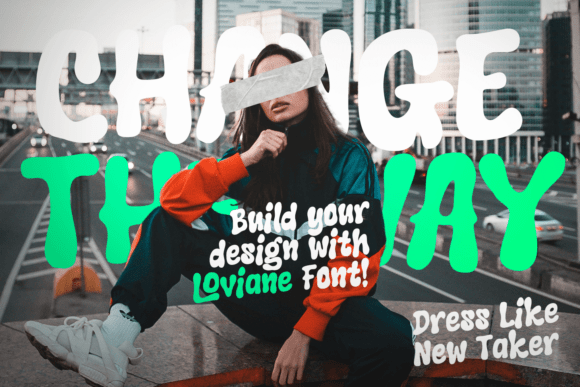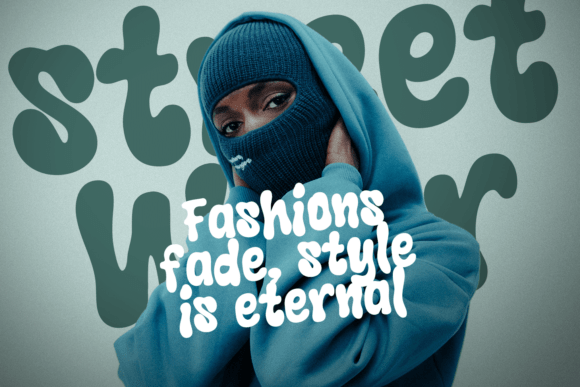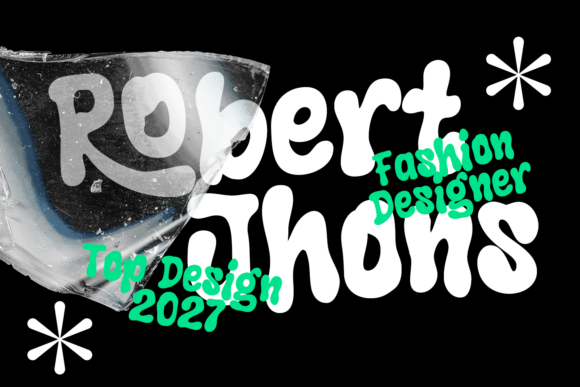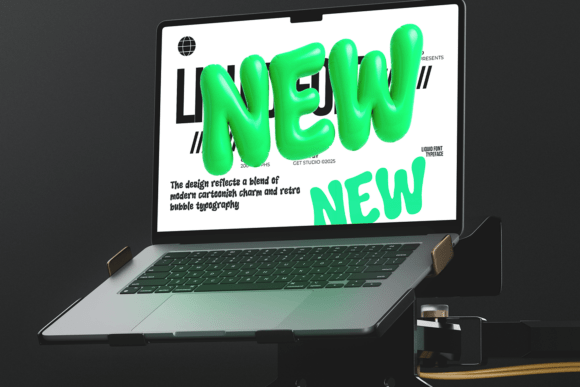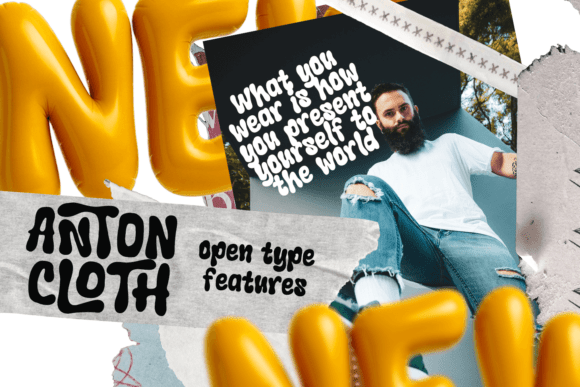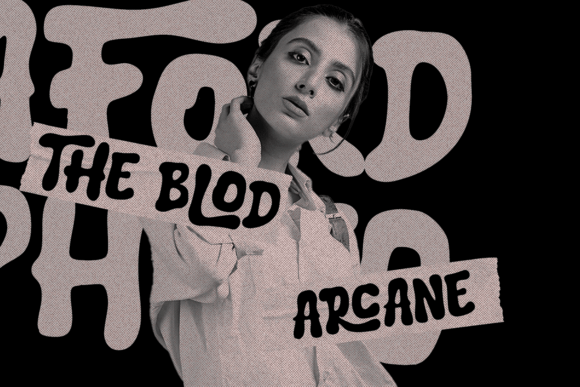
Introduction to Loviane Font
Have you ever stared at a blank design canvas, trying to capture the essence of your creative idea? The blank page can be intimidating, but with the right design resource, it can also be a thrilling challenge. For designers looking to add a splash of fun and modern creativity to their projects, the Loviane Font is an exciting discovery.
This playful liquid-style typeface brings a refreshing vibe to any design, from branding and packaging to social media graphics and event headlines. With its smooth, bubble-like shapes, Loviane Font makes every word look bold, juicy, and eye-catching, perfect for designers seeking to add a touch of personality to their creative projects.
Key Features of Loviane Font
- High-quality design resource perfect for creative projects, offering a unique and elegant aesthetic.
- Unique characteristics include intricate details and a modern, sophisticated feel, making it perfect for branding and design projects.
Honest Review: Loviane Font
I recently stumbled upon the Loviane Font, a design resource that caught my attention. The first thing I noticed was its high quality and versatility, making it perfect for various creative projects. The font’s elegant and sophisticated design makes it suitable for both personal and professional use.
Here are some of the things that work well with the Loviane Font: ✨
- High-quality design: The font is well-crafted, with clean lines and smooth curves.
- Customization options: The font can be easily customized to fit your specific design needs.
However, I did encounter some limitations: ⚠️
- Limited font styles: While the font is elegant, it’s not available in a wide range of styles, which may limit its use in certain creative projects.
- No support for special characters: The font may not support special characters, which could be a issue for designers working on international projects.
Overall, the Loviane Font is a solid design resource that can be a great addition to your design toolkit. While it has some limitations, its high quality and versatility make it worth considering for your next creative project.
Tips for Getting the Most Out of Loviane Font
To get the most out of the Loviane Font, use it in combination with other design resources, experiment with different font sizes and colors, and don’t be afraid to try new things.
The Loviane Font is ideal for various creative projects, including:
- Branding